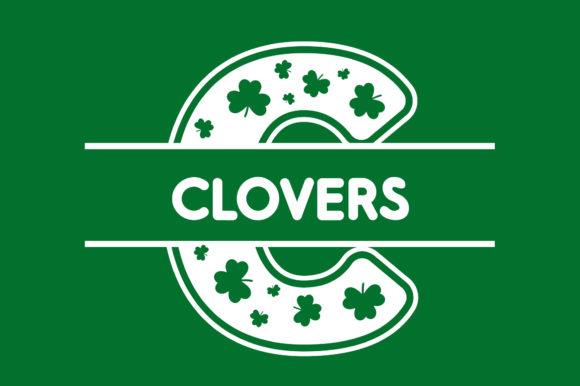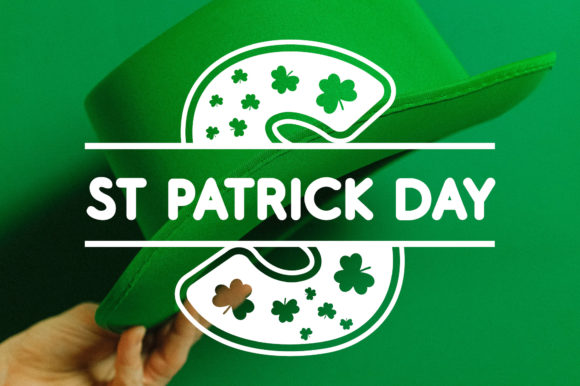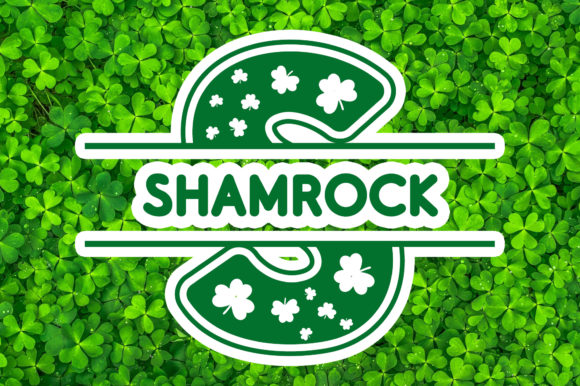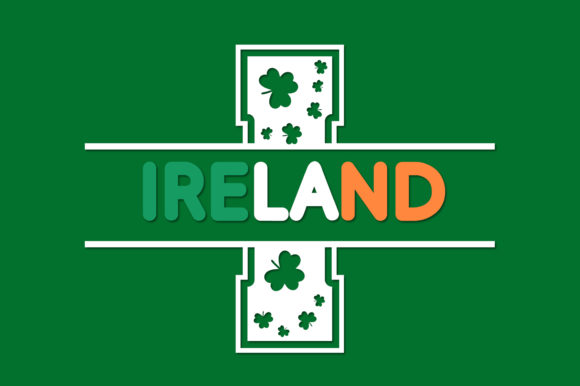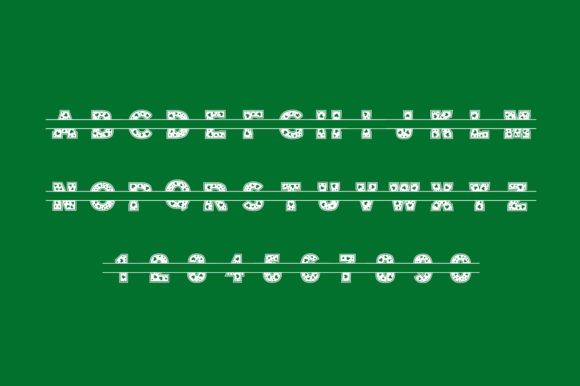
Clover Monogram Font: Elevate Your Designs with Timeless Elegance
Are you on the hunt for a font that exudes sophistication, style, and a touch of whimsy? Look no further than the Clover Monogram Font, a unique and decorative font that’s sure to capture your heart. With its incredibly stylish look, this font is perfect for designers and crafters seeking to create gorgeous and timeless designs that leave a lasting impression.
What is Clover Monogram Font?
Clover Monogram Font is a beautifully crafted font that boasts an interesting and unique design. Its monogram style letters are intricately detailed, making it an excellent choice for a wide range of design projects. Whether you’re looking to create stunning logos, elegant quotes, eye-catching invitations, or professional business cards, this font is sure to deliver.
Key Features of Clover Monogram Font
- Unique and Decorative Design: The Clover Monogram Font features a one-of-a-kind design that’s sure to set your designs apart from the rest.
- Highly Versatile: Use this font for a variety of design projects, including logos, quotes, invitations, business cards, PowerPoint presentations, and more.
- Timeless Elegance: The font’s classic design ensures that your creations will remain stylish and relevant for years to come.
Design Ideas with Clover Monogram Font
The possibilities are endless with the Clover Monogram Font. Here are a few design ideas to get you started:
- Logos: Create a stunning logo for your business or brand that incorporates the Clover Monogram Font.
- Invitations: Design beautiful invitations for weddings, parties, and other special events using this elegant font.
- Quotes and Posters: Add a touch of sophistication to your quotes and posters with the Clover Monogram Font.
- Business Cards: Stand out from the crowd with professionally designed business cards that feature this unique font.
- PowerPoint Presentations: Elevate your presentations with the Clover Monogram Font, perfect for headings, titles, and more.
Tips for Using Clover Monogram Font
To get the most out of the Clover Monogram Font, here are a few tips to keep in mind:
- Experiment with Colors: Try pairing the font with different colors to create a unique and eye-catching design.
- Mix and Match Fonts: Combine the Clover Monogram Font with other fonts to create a visually appealing design.
- Pay Attention to Spacing: Make sure to adjust the spacing between letters to ensure a clean and elegant design.
In conclusion, the Clover Monogram Font is a versatile and stylish font that’s perfect for designers and crafters seeking to create beautiful and timeless designs. With its unique monogram style letters, highly versatile design, and timeless elegance, this font is sure to become a staple in your design toolkit. So why wait? Fall in love with the Clover Monogram Font and start creating stunning designs today!